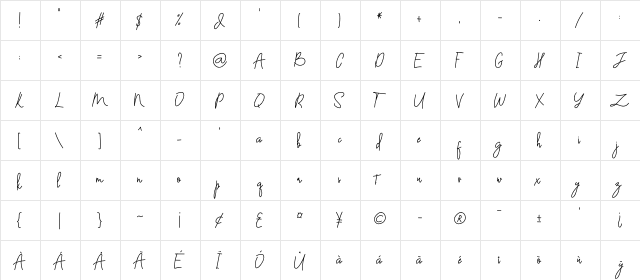
sallapan Regular
| Designer | zerofivestudio |
Design Context for sallapan Typeface
sallapan is a composed and adaptable typeface that performs quietly and consistently across a wide range of design contexts.